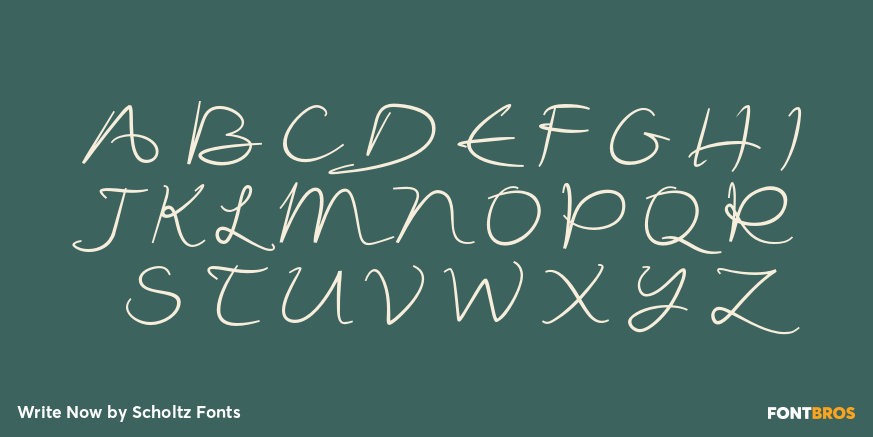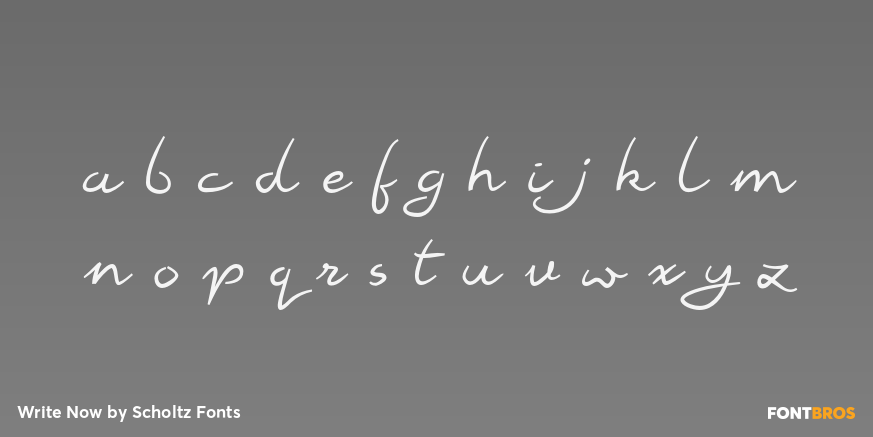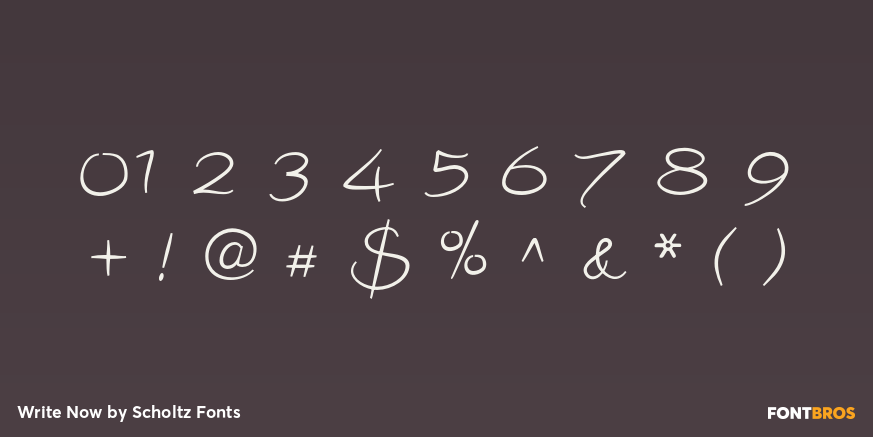
Write Now
Font Family by Scholtz Fonts
Write Now is an elegant, informal, handwritten script font, developed from the designer's handwriting, and carefully crafted to create a flowing, legible image. The large, opulent capitals, with their loose loops and curves create a perfect foil for the more subdued lower case characters, presenting a strong but gentle message .
Write Now comes in two styles, Write Now Regular and the delicate Write Now Thin. The font has been carefully letterspaced and kerned. A full character set (all upper and lower case characters, punctuation, numerals and accented characters) is present.